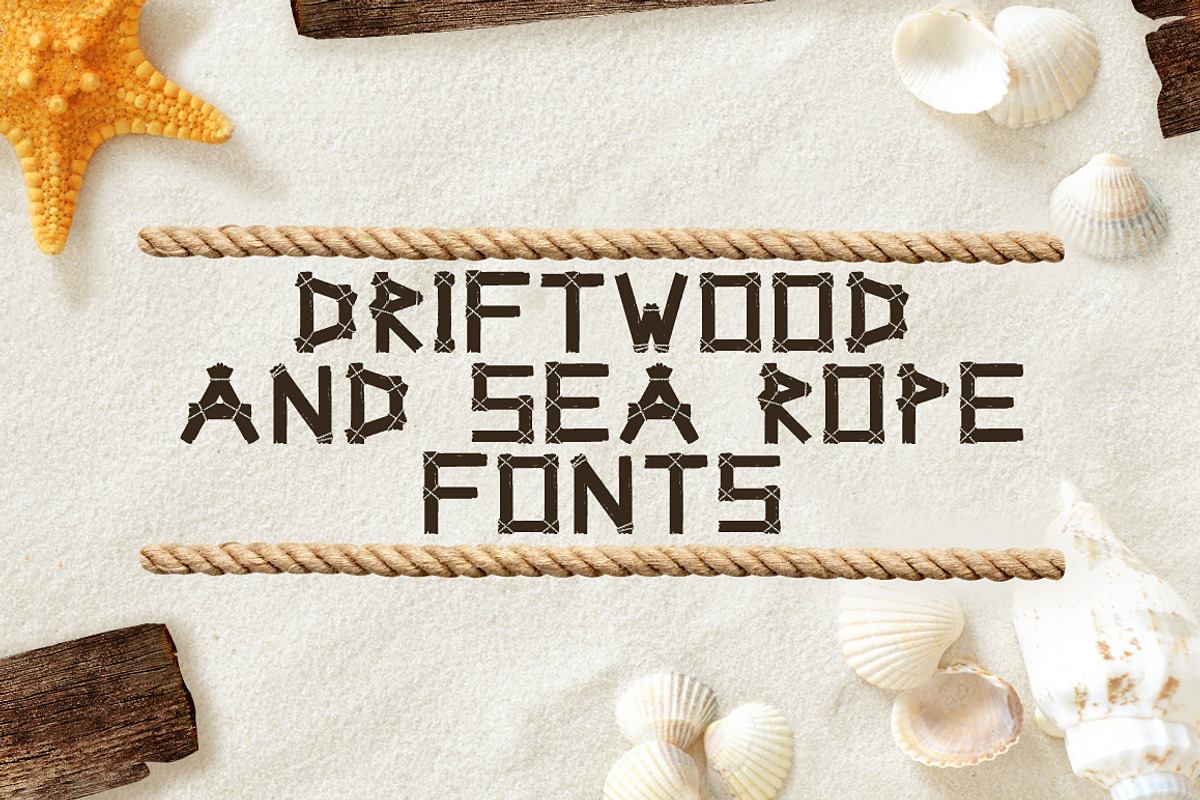
Driftwood & Sea Rope Fonts Free Download is a stylish and rustic font duo that evokes the natural beauty of the coast. Driftwood features a rough, textured design that mimics weathered wood, while Sea Rope is a more structured, rope-inspired typeface that complements the organic feel of Driftwood. Together, they create the perfect combination for projects related to the sea, beach, nautical themes, or rustic branding.
Whether you're working on logos, posters, packaging, or website design, these fonts add charm, character, and a relaxed, coastal vibe to your typography. Whether you’re designing for a beach resort, a marine brand, or a coastal event, Driftwood & Sea Rope will bring a fresh, natural look to your designs.